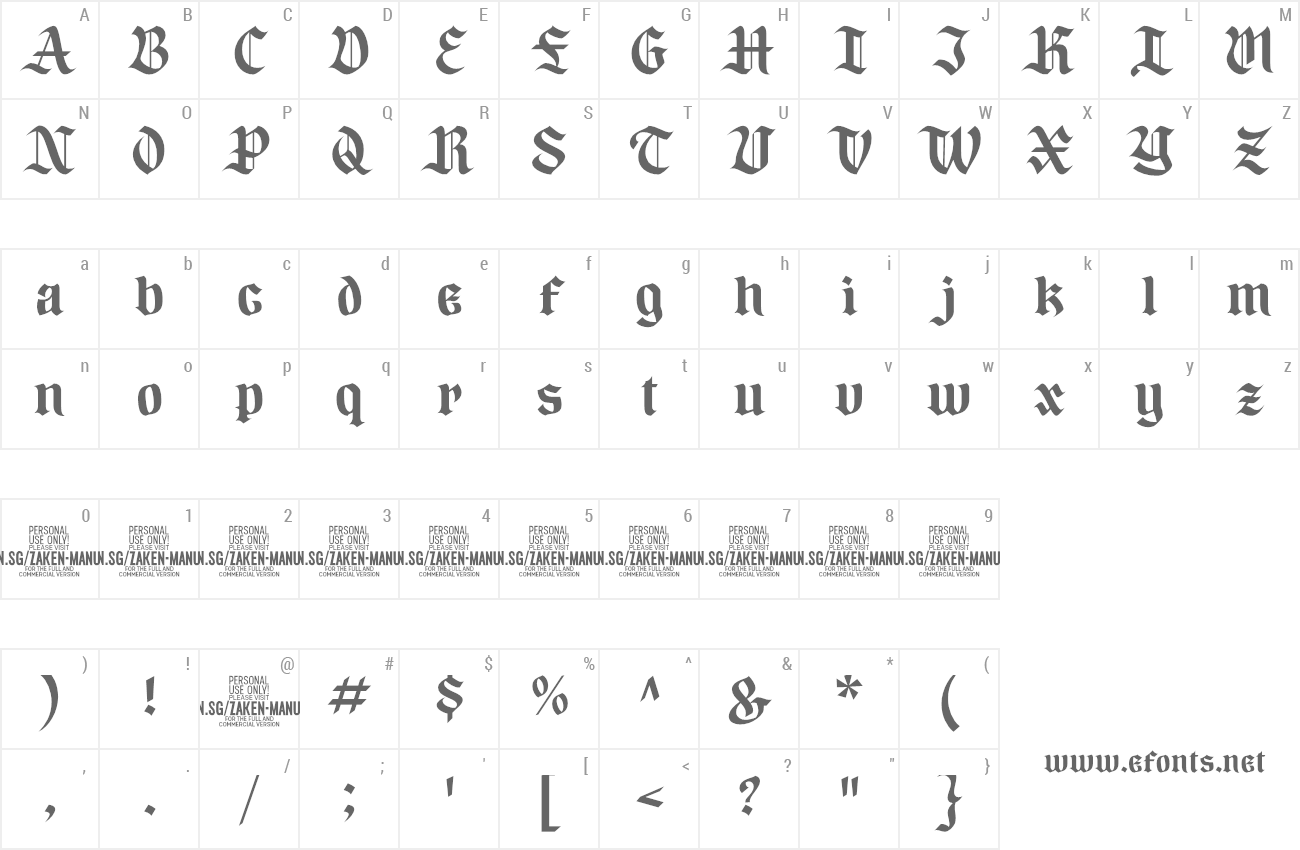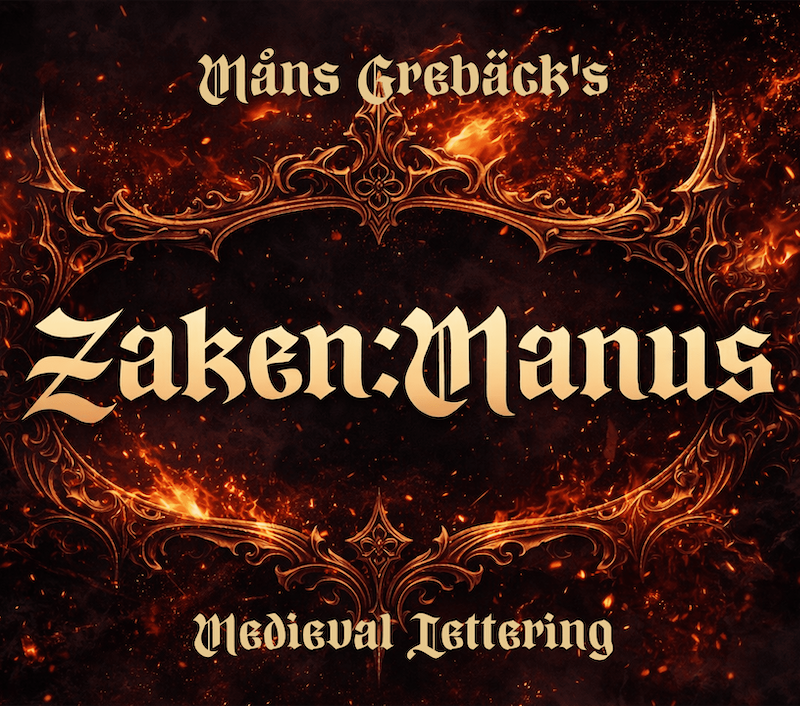
Preview and download Zaken Manus Font. Created by Måns Grebäck in Gothic Medieval styles with Free for personal use license.
| Categories | Gothic, Medieval |
NOTE: This font is for PERSONAL USE ONLY! To purchase a commercial license, visit: https://www.mansgreback.com/product/zaken-manus Zaken Manus is a medieval blackletter font with a commanding and deliberate presence. Its letterforms are rooted in manuscript tradition, with sharp angles and a steady rhythm that gives the text a sense of authority. The shapes feel carved and intentional, balancing ornament with clarity, and creating a texture that is dense without becoming chaotic. For questions, please visit https://mansgreback.com/faq |